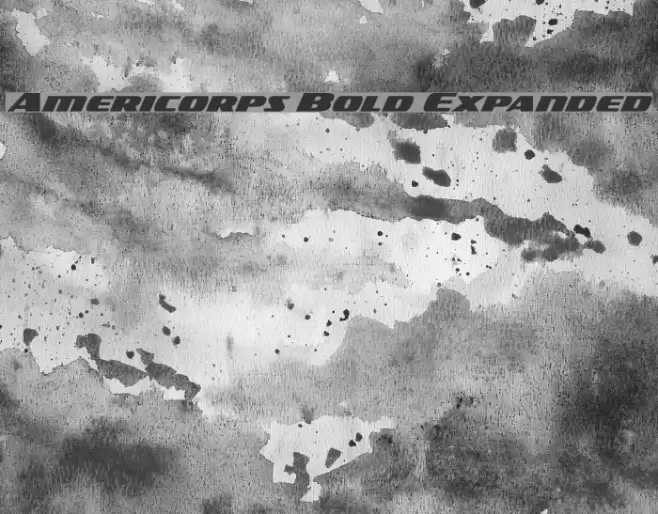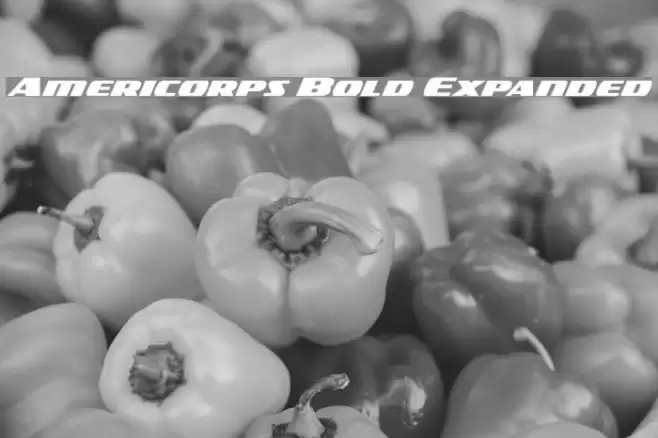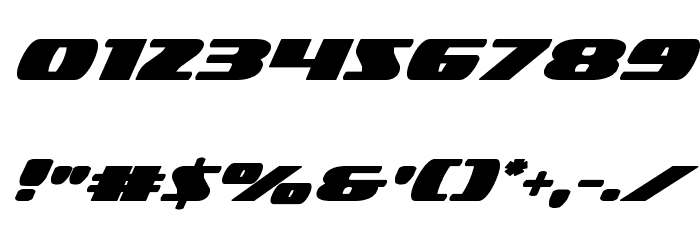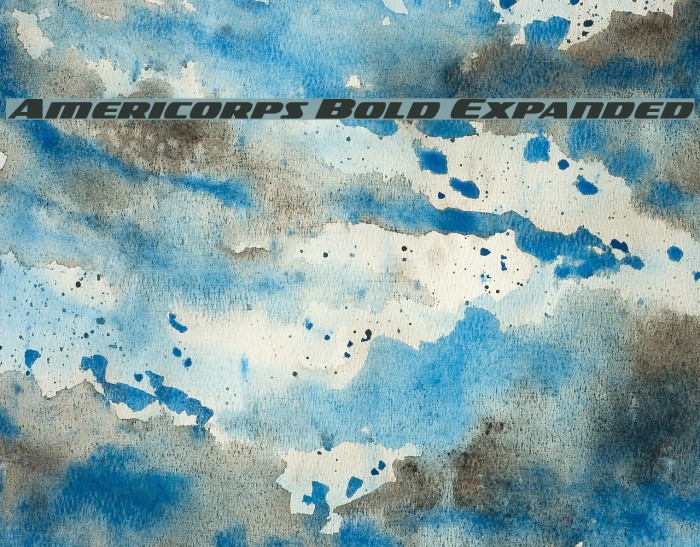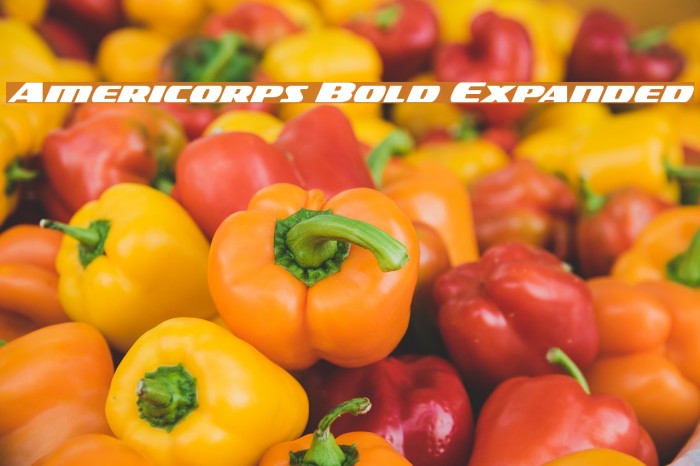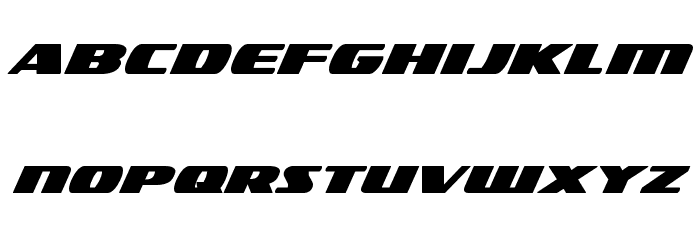
Americorps Bold Expanded Font
Americorps Bold Expanded Description
This font features a bold and expanded style with a strong, impactful presence. The characters are designed with a slanted, italicized appearance, giving them a dynamic and forward-moving look. The strokes are thick and consistent, providing a high level of contrast that enhances readability. The overall style is modern and aggressive, making it suitable for attention-grabbing headlines and logos. The spacing between characters is tight, contributing to its compact and powerful aesthetic.
A bold, expanded, and italicized font with a modern, dynamic style from Uncategorized fonts.
- Proposed Projects: Ideal for sports branding, action movie posters, dynamic advertising campaigns, and bold logo designs.